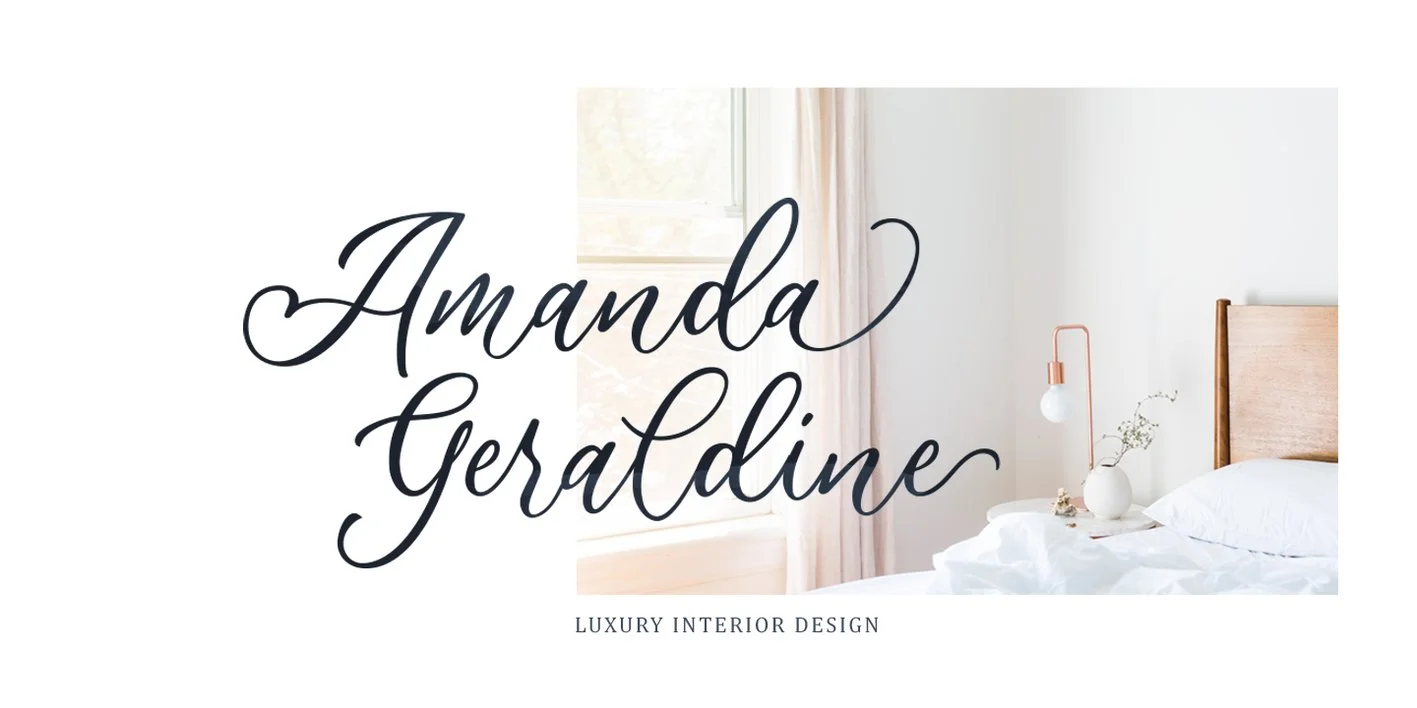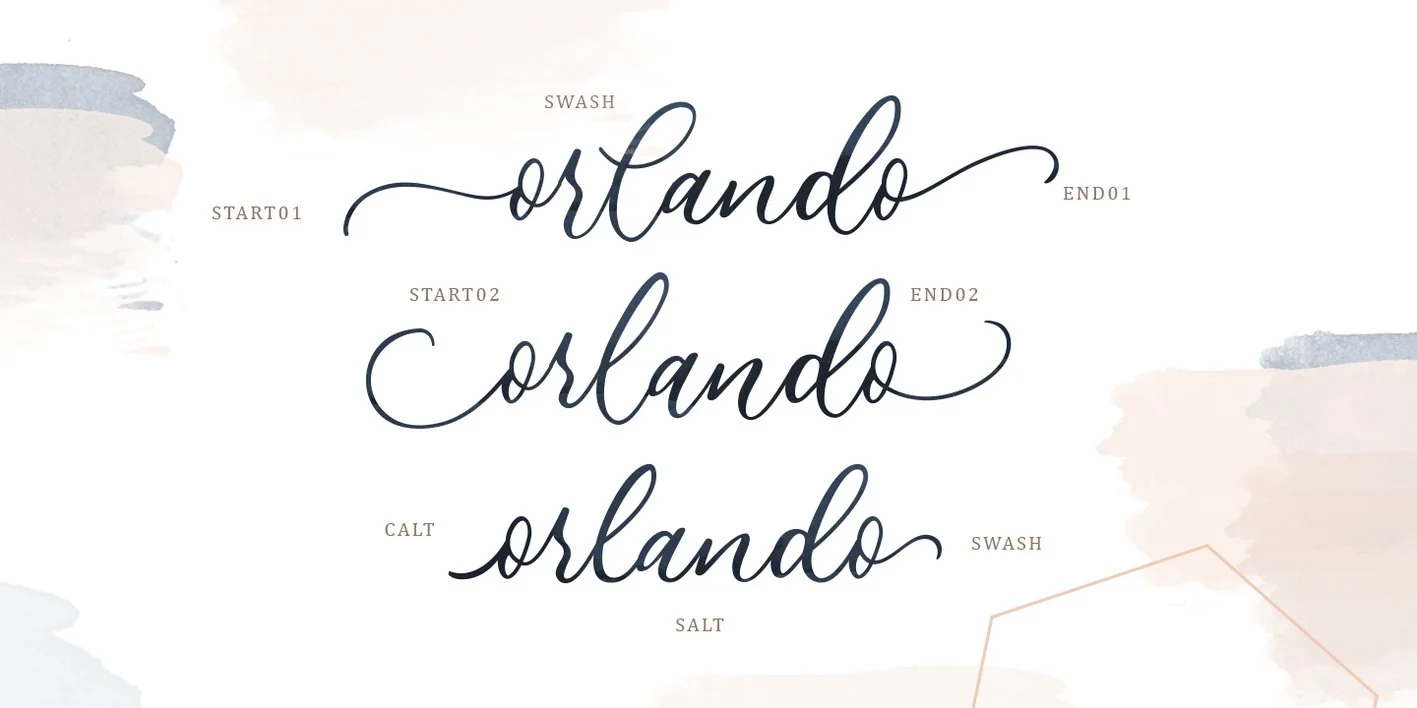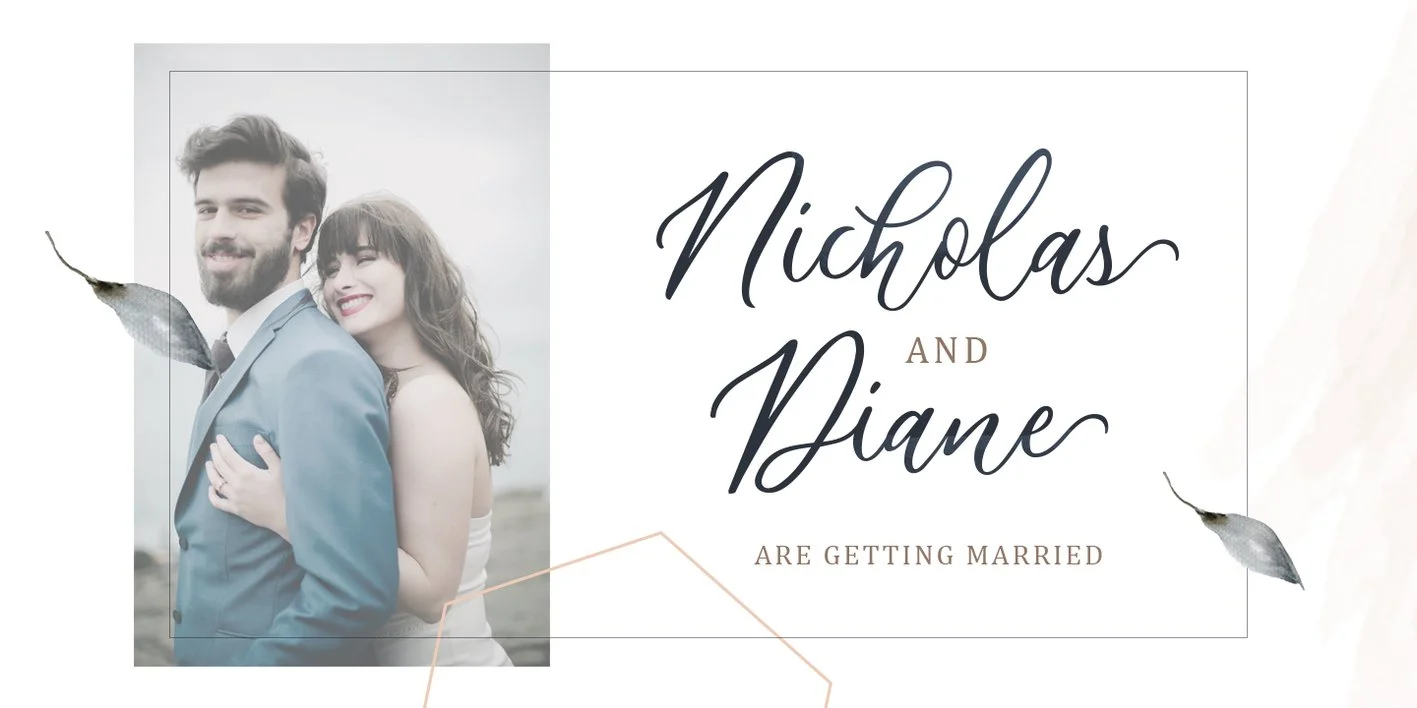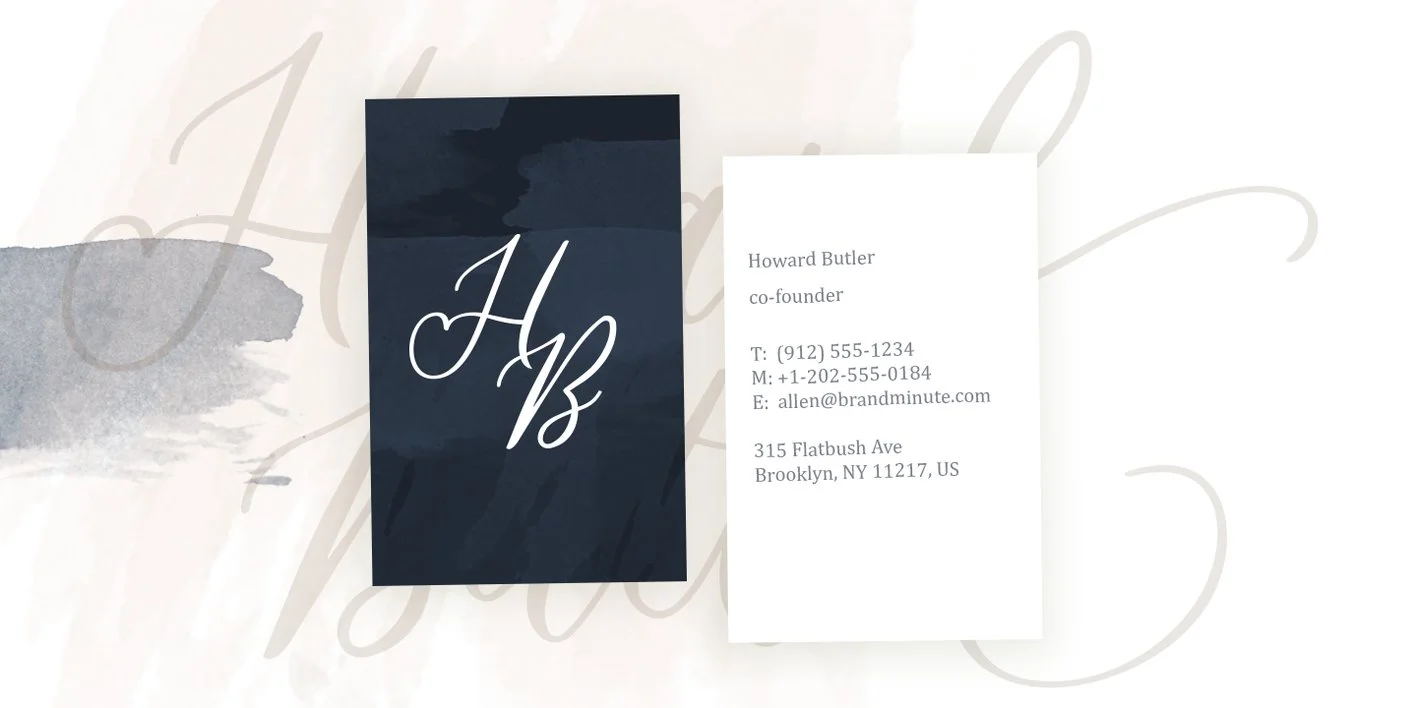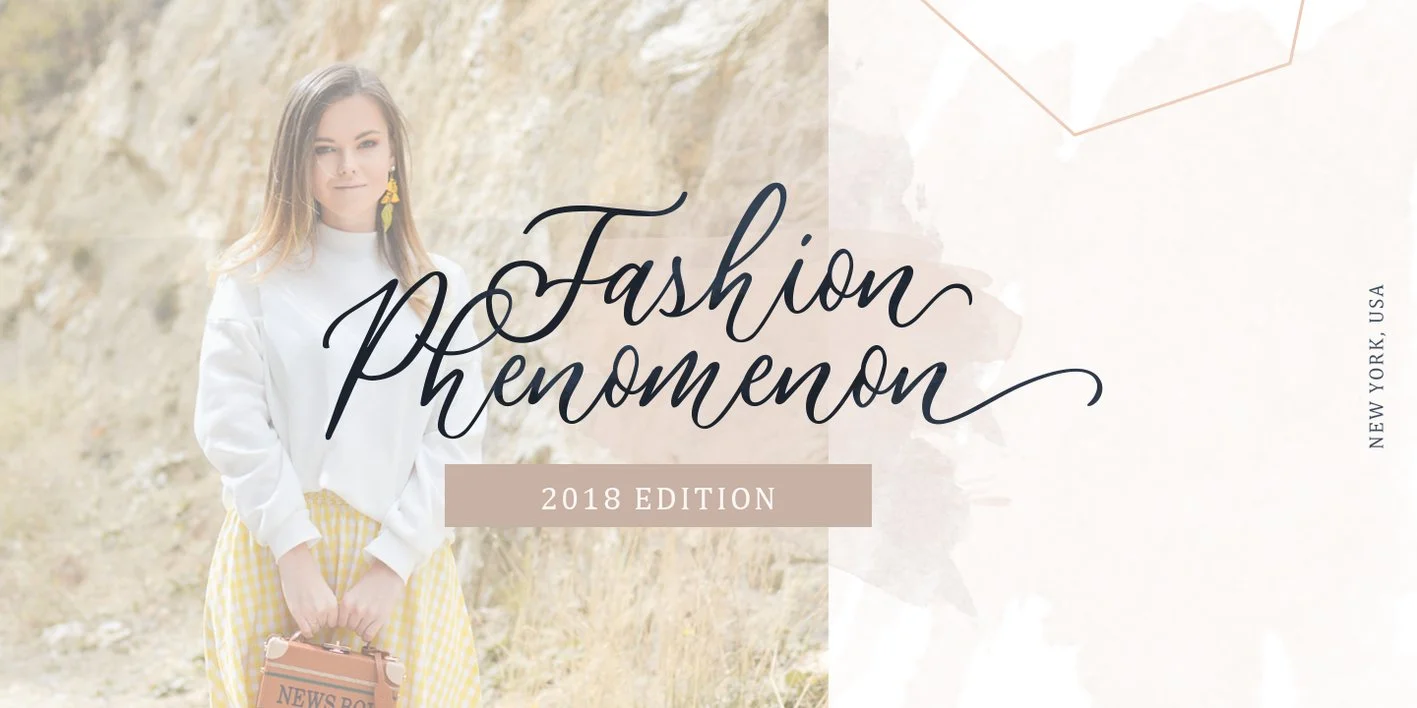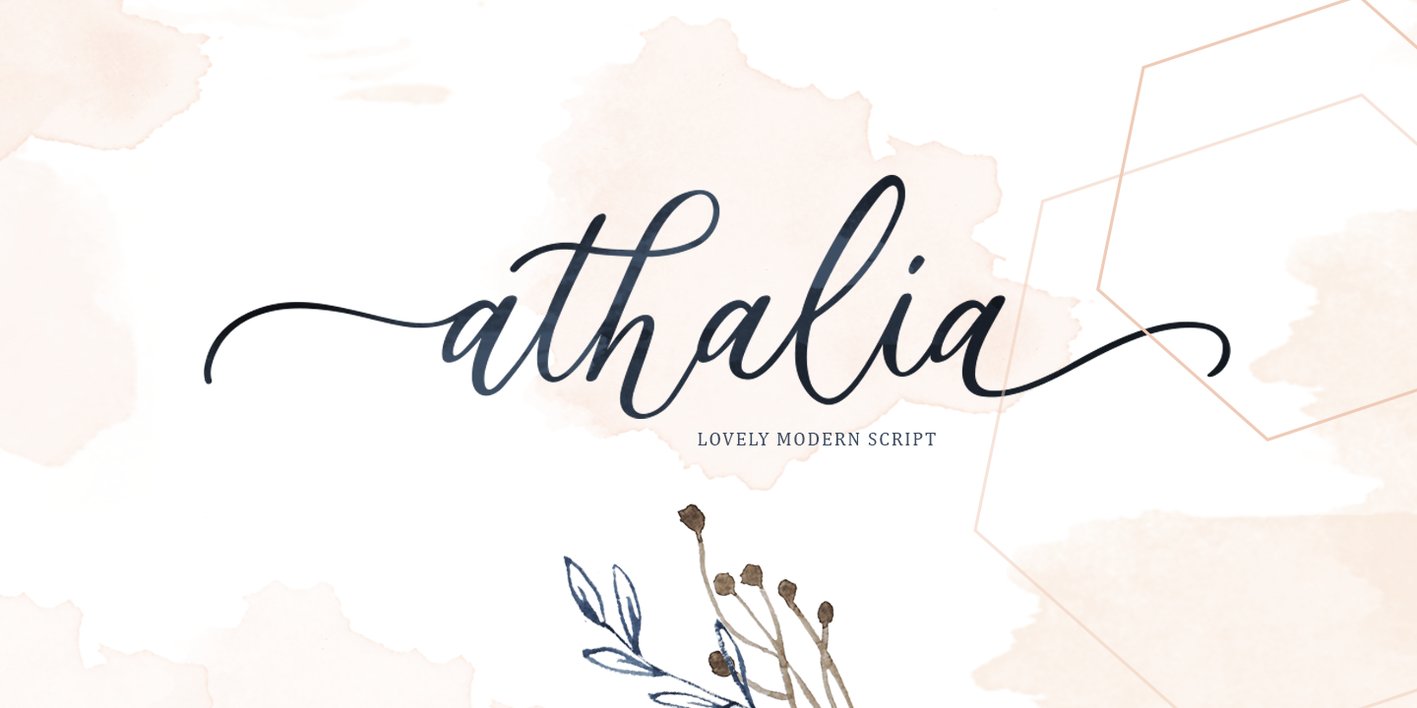
Athalia Script Font
When a design brief calls for both refined proportions and careful stroke modulation and immediate visual impact, type choices matter — Athalia Script answers that brief. The typeface brings an elegant, calligraphic sensibility to a broad range of creative disciplines, with strong typographic hierarchy support that holds up whether the work is print-first or screen-first.
In practice, Athalia Script proves particularly effective for signage systems, environmental graphics, brand identity systems, high-end cosmetic packaging, beauty packaging. Designers reaching for it find that the type decisions feel resolved rather than laboured — a useful quality when client timelines are tight.
The range of applications extends to logo design, social media graphics, perfume labels, luxury stationery. That breadth is deliberate: the proportions and spacing were stress-tested across a wide range of mock briefs before the typeface was finalised.
Athalia Script sits comfortably alongside both classic and contemporary typefaces in multi-font hierarchies. It takes direction rather than competing for attention — a quality that experienced designers know is harder to find than it appears.
Art directors commissioning type-led campaigns find Athalia Script a reliable choice for projects that demand both personality and restraint. The design avoids the self-conscious quirkiness that dates quickly, settling instead for considered distinctiveness that holds up over time.